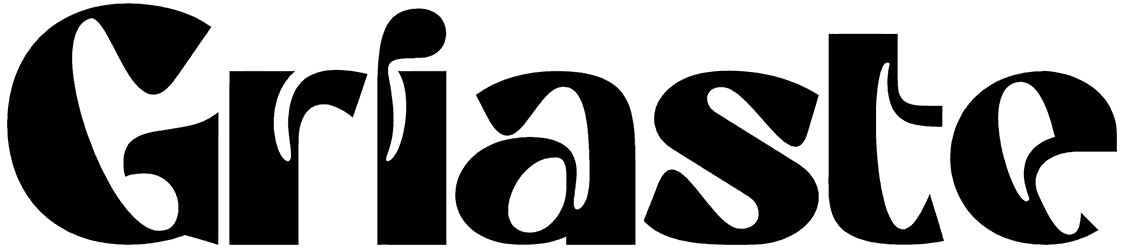
Griaste Font
It doesn’t matter how experienced you are; you’re going to come off like a genius by using Griaste in your brand identity projects. With a groovy font like this in your toolkit, you’ll be basically unstoppable.
Take this chance to design inspired logos for your handmade scarves and titles for your art class posters, and you can have all the attention you crave. We’re telling you, this typography font works like magic when you have a lot of people to impress, even without numbers.